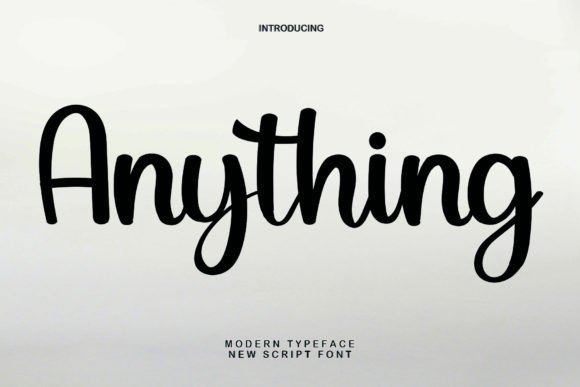
The Perfect Brushstroke for Your Next Masterpiece
Have you ever stared at a blank page, waiting for the perfect idea to strike? That’s exactly where I was when I stumbled upon the Anything Font. Its elegant, handwritten style immediately caught my attention, and I knew I had to learn more.
Anything Font is a modern, trendy font that brings a touch of classic calligraphy to any design project. Its impeccable form and contemporary atmosphere make it the perfect choice for adding a hint of sophistication to your work. Whether you’re a seasoned designer or just starting out, this font is sure to elevate your projects and leave a lasting impression.
As a designer, you know that the right font can make all the difference. Anything Font is a valuable addition to any toolkit, offering a unique and stylish way to express yourself and bring your ideas to life.
Key Features of “Anything Font”
- Unique Characteristics: The font’s unique design allows for flexibility in use, making it suitable for both digital and print media, including signage, billboards, and business cards.
Designer Review: Anything Font
Overall, I was excited to dive into the “Anything Font” – a font that promises to be, well, anything I need. ✨ Here are some things that really work well:
- Customizability: This font truly delivers on its promise of being versatile and adaptable. I was able to create a wide range of styles and moods with just a few tweaks.
- Expressive flair: The font’s unconventional design allows for some really interesting and unique combinations that can add a touch of personality to any project.
However, as with any font, there are some limitations to be aware of: ⚠️
- Legibility at small sizes: While the font is great at larger sizes, I found that it can become a bit difficult to read at smaller sizes, especially in body text.
- Lack of standard weights: The font doesn’t come with a standard set of weights, which can make it harder to create a cohesive look and feel.
Overall, I would say that “Anything Font” is a great choice for designers who want to add some flair and personality to their work, but may not be the best fit for projects that require a more straightforward or legible font. With a bit of creativity and patience, however, it can be a really effective tool in the right hands.
Tips for Getting the Most Out of “Anything Font”
Use “Anything Font” to create unique and eye-catching designs. Experiment with different font sizes, colors, and alignments to achieve the desired effect.
“Anything Font” is ideal for:
- Creating attention-grabbing headlines and titles.
- Designing social media graphics and posts.
- Adding a personal touch to presentations and documents.
Alternatives to “Anything Font” for Designers
Open Sans is a clean and modern sans-serif font that works well for body text, headings, and titles. It is highly legible and suitable for digital platforms such as websites and mobile apps. Open Sans is a good choice when you want a neutral and versatile font that can be used in various contexts.
Comparison to Anything Font: Open Sans is more legible and has a more defined character set compared to Anything Font, which is more experimental and designed for creative applications.